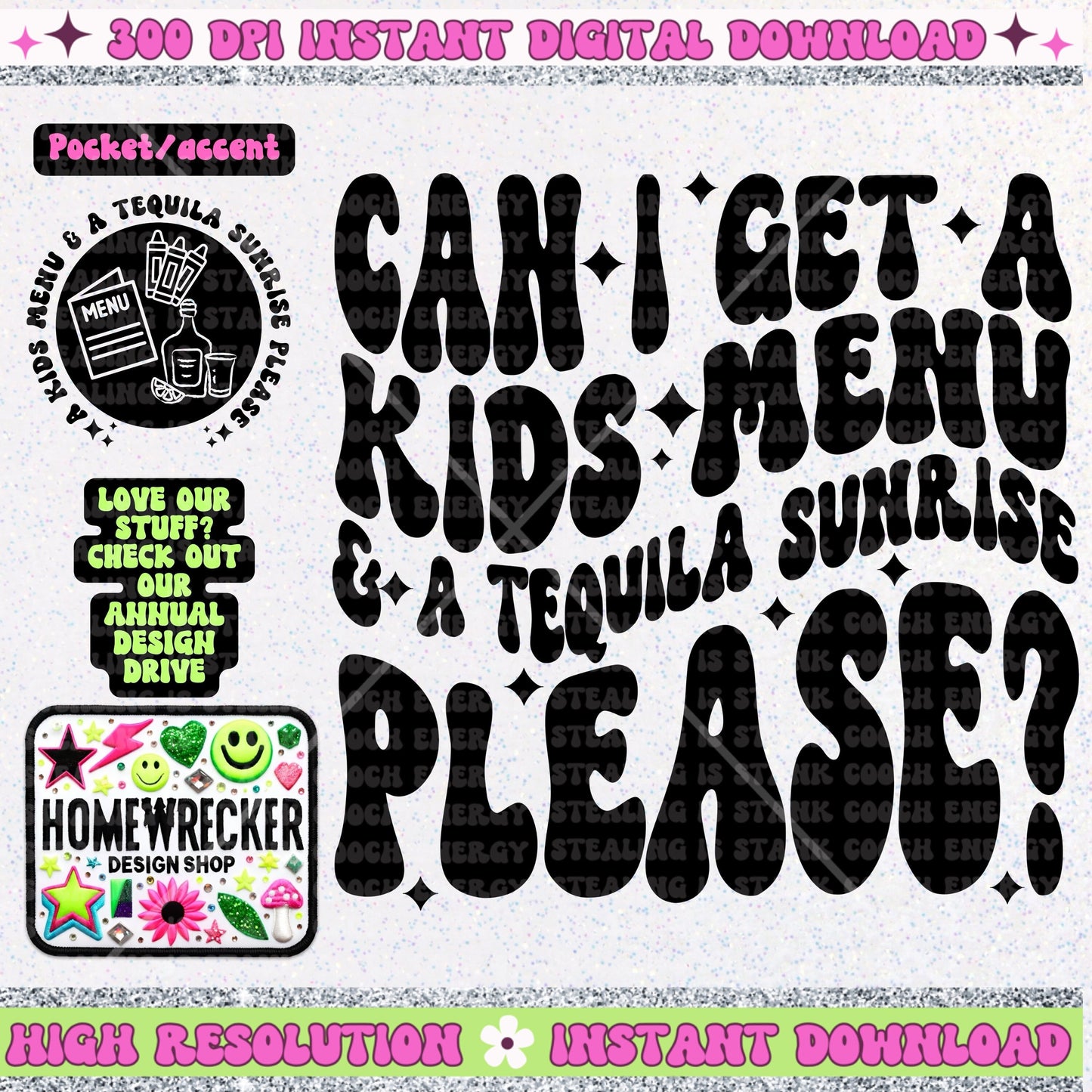
Can I get a kids menu and a tequila sunrise please mom PNG Digital Download Wavy font design with front pocket accent humor funny mom png
Can I get a kids menu and a tequila sunrise please mom PNG, Digital Download, Wavy font design with front pocket accent mom humor funny mom png